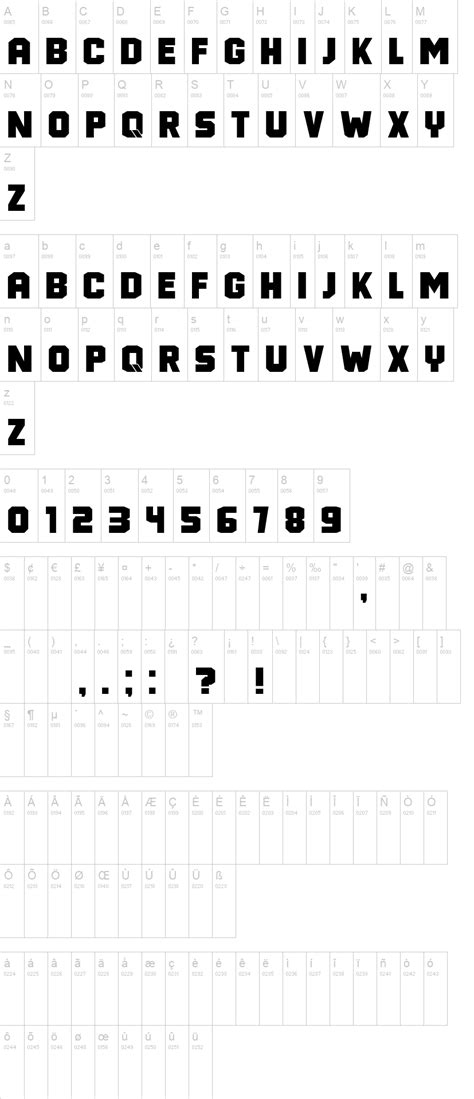
Dafont Fonts: A New York Times Guide
dafont Fonts: A New York Times Guide
Hey guys! Ever stumbled upon a font and thought, “Wow, where can I get that?” Well, if you’re anything like me, you’ve probably spent hours browsing through font websites, trying to find the perfect typeface. Today, we’re diving deep into the world of dafont fonts, a massive online directory filled with thousands of fonts. We’ll explore how dafont can complement your work, especially when paired with the sophisticated aesthetic often seen in the New York Times (NYT). Let’s unlock the secrets to choosing the right fonts for your projects and how you can find fonts that capture the essence of the New York Times style. Ready? Let’s get started!
What is dafont and Why Should You Care?
So, what exactly is dafont ? Simply put, it’s a website that acts as a vast library of fonts. Seriously, they’ve got everything from the classic serif fonts to the most bizarre, creative display fonts you can imagine. Dafont is a goldmine for designers, writers, and anyone else who needs to find a font for their project. The best part? Most of the fonts are free for personal use! This makes it a great resource for anyone on a budget or just starting to explore typography. However, be aware that commercial use often requires a license, so always check the font’s license before using it in your professional work.
Dafont’s Key Features
• Vast Selection: Dafont boasts a huge selection of fonts, so you’re bound to find something you like, regardless of the project. There’s a font for everything, from elegant serif fonts to funky display fonts. This is its biggest selling point for any aspiring designer looking to create content.
• User-Friendly Interface: The site is easy to navigate, with categories, themes, and search filters that help you find exactly what you’re looking for. You can easily search by style, author, or even just by keywords.
• Preview Functionality: You can preview your text in any font before downloading it, which is useful for seeing how it will look in your project.
Now, let’s look at how we can apply these concepts to mimic the New York Times aesthetic.
The New York Times and Typography: A Match Made in Heaven
The New York Times is known for its impeccable design and typography. If you’ve ever read the New York Times , you will notice that it has an elegant and sophisticated look, and typography plays a huge role in achieving this. The newspaper has a reputation for its clean layout, readability, and classic font choices. They use a blend of serif fonts for the body text, providing a sense of authority and tradition, along with sans-serif fonts for headlines and subheadings, adding a modern touch to the overall design. Let’s delve deeper into how the New York Times uses typography to create its iconic brand.
Key Typographic Elements of the New York Times Style
• Serif Fonts: New York Times typically uses serif fonts such as Times New Roman and its variations for body text. These fonts are known for their readability and classic look, creating a sense of trust and authority. This is a crucial element if you want to create content that resembles the New York Times aesthetic.
• Sans-Serif Fonts: For headlines and subheadings, New York Times often uses sans-serif fonts such as Helvetica or Gotham . These fonts offer a modern and clean look that contrasts the serif body text, providing visual interest and hierarchy.
• Font Weights and Styles: The use of different font weights (like bold, regular, and light) and styles (like italics ) adds emphasis and visual appeal. This helps create a clear hierarchy of information, guiding the reader’s eye through the content.
• Consistent Spacing: New York Times pays close attention to spacing, including line spacing, letter spacing, and margins. Consistent spacing is essential for readability and creates a balanced and professional look. This detail is so crucial to the overall effect!
Understanding these elements is the first step in using dafont to find fonts that resemble the New York Times style. So, the next time you see a great font, you can easily use it to create content that looks like New York Times !
Finding New York Times-esque Fonts on dafont
Now, for the fun part! Let’s explore how you can use dafont to find fonts similar to those used by the New York Times . Because of copyright and usage restrictions, you won’t find the exact fonts used by the New York Times on dafont . However, you can find a lot of similar fonts that capture the same essence. Here’s a breakdown of how to search and what to look for:
Step-by-Step Guide to Searching for Fonts on dafont
1. Start with the Basics: Head over to dafont.com. The homepage has a search bar and a category menu, which are the main tools you’ll use to navigate the site.
2. Explore Categories: Dafont categorizes fonts by style, like Serif, Sans Serif, Script, and Display. To find fonts like the New York Times , start by browsing the Serif and Sans Serif categories. Consider the * New York Times*’s use of a combination of serif fonts for body text and sans-serif fonts for headlines.